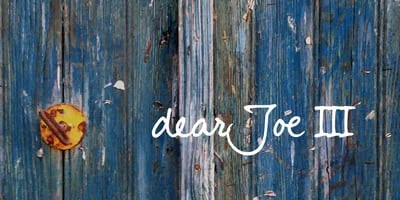
DearJoe 3 Font
DearJoe 3 Font is perfect for personal projects including handwritten greeting cards, casual blog headers, friendly social media graphics, personal branding materials, informal invitations, creative journaling, artisanal product labels, and warm marketing communications. This charming typeface brings authentic handwritten personality and approachable warmth to any design project.
What makes DearJoe 3 Font exciting is its genuine handwritten character that feels like a personal note from a close friend. The natural letter variations and organic flow capture the spontaneous beauty of real handwriting while maintaining excellent readability. This font delivers the intimate, personal touch that connects with audiences on an emotional level, making every message feel heartfelt and authentic.
The DearJoe 3 Font family typically includes regular weight with natural handwritten variations, complete uppercase and lowercase alphabets, numerals, punctuation, and casual symbols. The design often features organic letter spacing and natural baseline variations that enhance the handwritten authenticity. Some versions include stylistic alternates and ligatures that provide additional handwritten character options for enhanced personalization.
Whether you're designing for lifestyle brands, personal projects, or intimate communications, DearJoe 3 Font delivers the genuine personality that makes designs feel human and approachable. Its friendly character makes it perfect for projects that need to establish personal connections and emotional resonance. The font's handwritten heritage ensures it conveys warmth and sincerity, making it ideal for any project requiring the authentic aesthetic of personal touch and heartfelt communication.